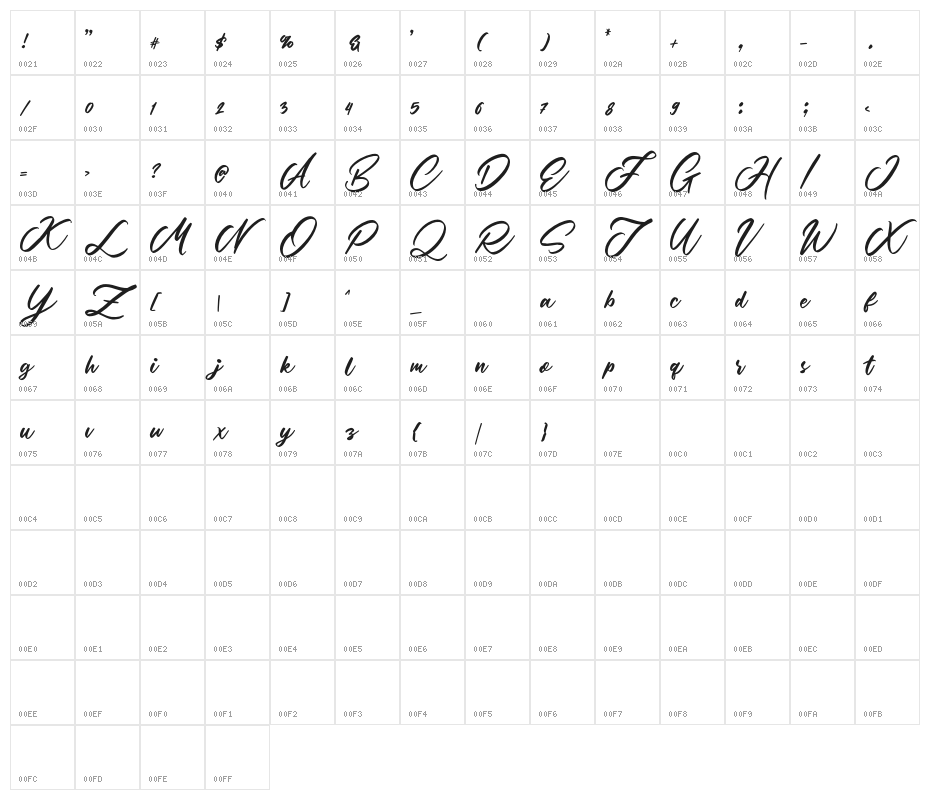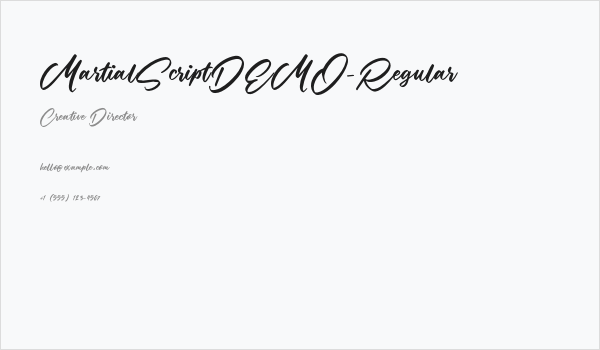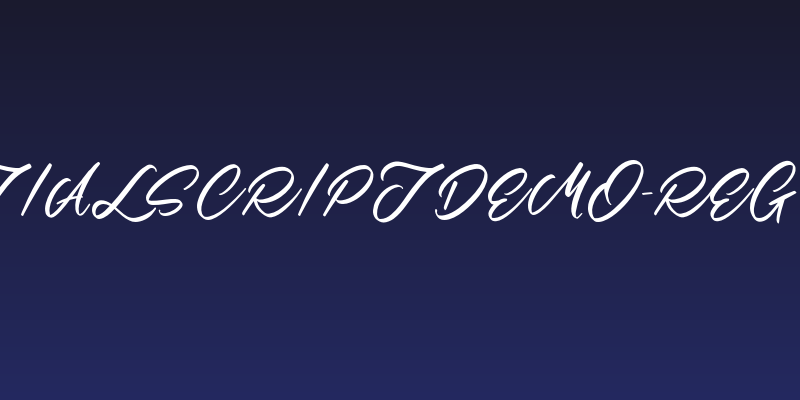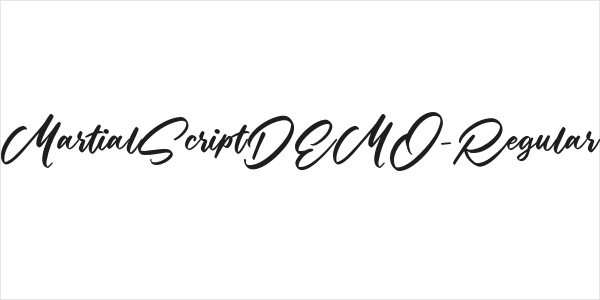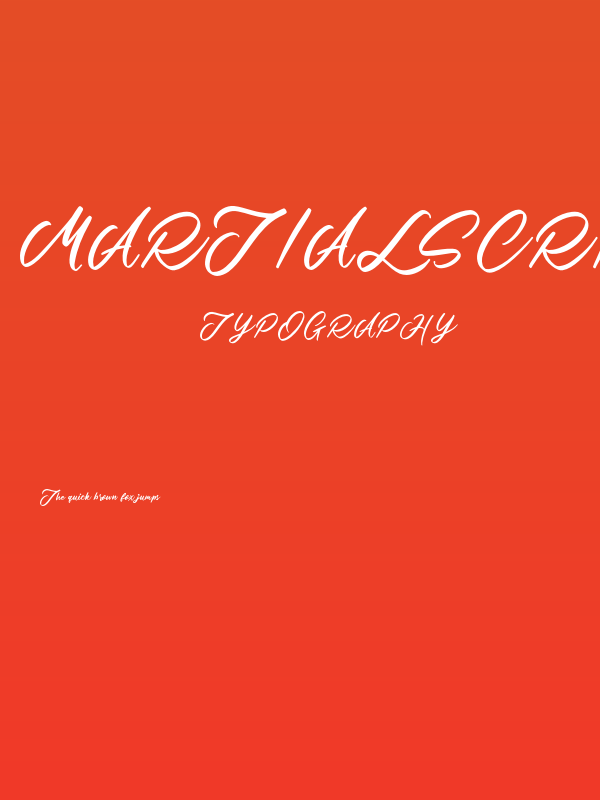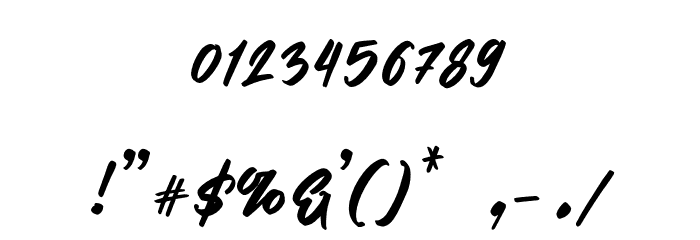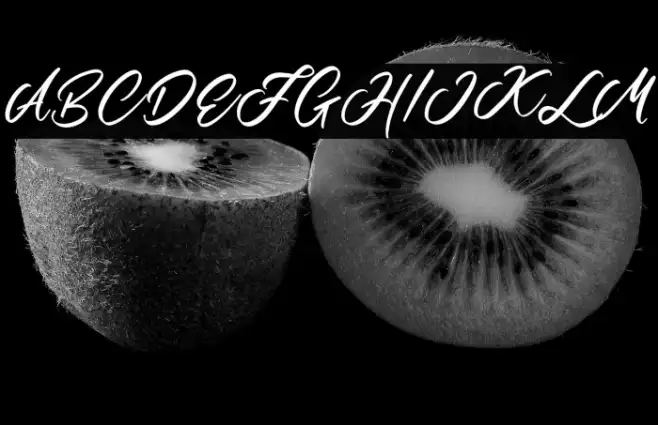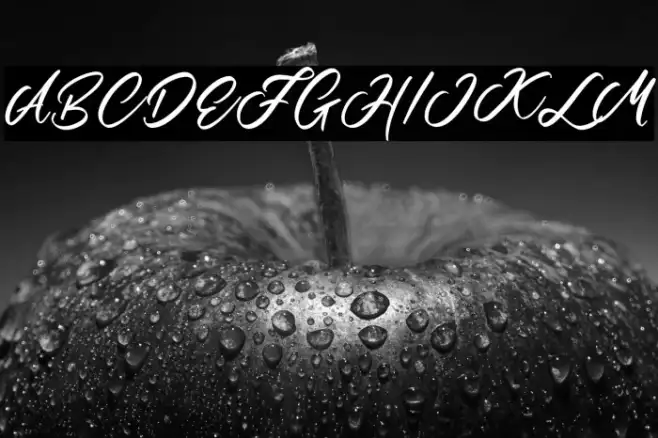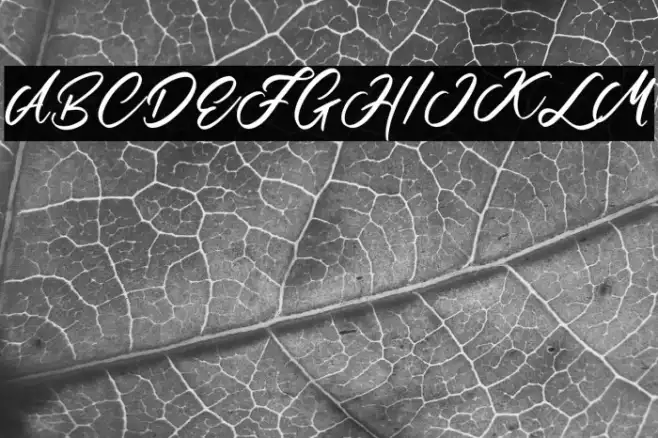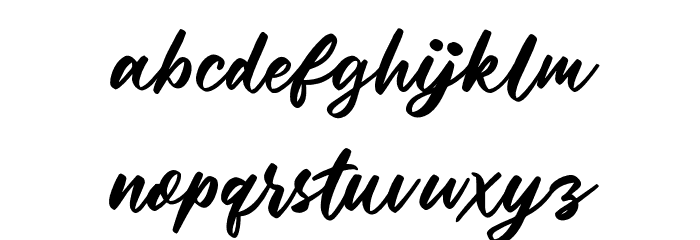
MartialScriptDEMO-Regular Font
MartialScriptDEMO-Regular Description
This font features a flowing, cursive style that mimics elegant handwriting. The characters are connected, creating a seamless and fluid appearance. The uppercase letters are slightly larger and more ornate, while the lowercase letters maintain a consistent, smooth flow. The numerals and special characters are designed to match the script style, adding a cohesive look to the entire set. The strokes are bold and confident, with a medium contrast that enhances readability while maintaining the decorative script essence.
| Use Case | Logos, Invitations, Decorative Text |
| Proposed Projects | Ideal for wedding invitations, greeting cards, branding, and elegant signage. |